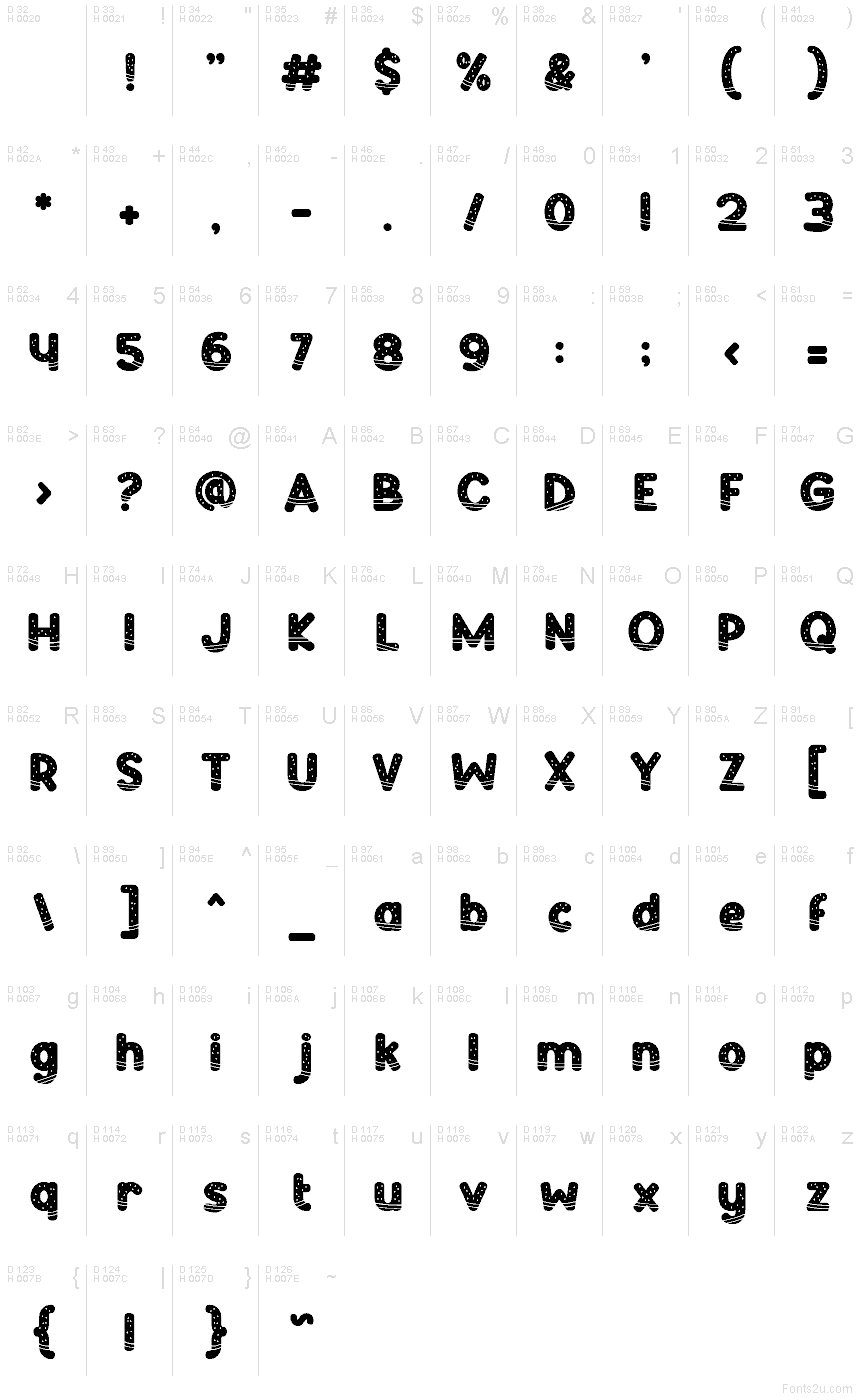
Green Delight Watermelon
Green Delight Watermelon font by PutraCetol Studio is a unique decorative display typeface with an eye-catching design. The bold font is all about patterns, playful ornamentation, and shapes that give the characters a retro and vintage feel. It isn’t regular nor does it have a consistent style; this makes it an interesting choice in artistic projects.
Whether you’re working on branding designs, signage, advertising materials, magazines covers or headlines and subheadings for prints or websites; Green Delight Watermelon will provide something special. Use it further in layouts for invitations, menu designs, product labeling and packaging as well as apparel items.